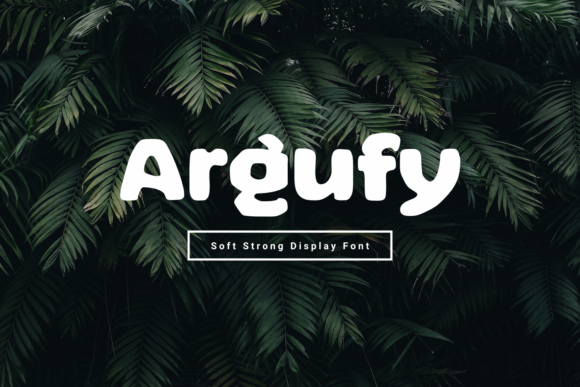
The Designer’s Delight: Exploring the Charm of Argufy Font
I’ll never forget the time I was working on a food menu project for a trendy new restaurant. I had all the ingredients ready – the mouth-watering images, the clever copy, and the design skills to bring it all together. But, as I sat staring at my screen, I realized I was stuck on one thing: the font. It had to be perfect, something that would make the menu pop and leave a lasting impression on customers. That’s when I stumbled upon Argufy Font, a cool, vintage-styled, and organic display font that instantly caught my attention.
A Personal Review: The Good, the Great, and the Quirks
As I started experimenting with Argufy Font, I fell in love with its unique charm. Here are some things that make it stand out:
- ✨ Unique vintage vibe that’s perfect for food menus, posters, and flyers
- ✅ Highly legible, even at larger sizes
- 💥 Extensive OpenType features, including glyphs and stylistic alternates
- 🎨 Great for designs that need a touch of warmth and personality
Of course, no font is perfect, and Argufy has a few minor quirks:
- 🤔 Some users might find the font a bit too ornate for certain projects
- ⚠️ Limited suitability for body text, due to its display font nature
The Story Behind Argufy Font
Argufy Font was designed with the intention of capturing the essence of vintage typography. The designer, inspired by classic signage and print materials, aimed to create a font that would evoke a sense of nostalgia and warmth. With its unique blend of organic and geometric elements, Argufy Font has become a go-to choice for designers looking to add a touch of personality to their work.
| What is the best use for Argufy Font? | Argufy Font is perfect for display purposes, such as food menus, posters, flyers, and other print materials. |
| Is Argufy Font suitable for body text? | No, due to its display font nature, Argufy Font is not ideal for body text. |
| Does Argufy Font come with OpenType features? | Yes, Argufy Font includes extensive OpenType features, such as glyphs and stylistic alternates. |
In conclusion, Argufy Font is a versatile and charming display font that’s perfect for designers, crafters, and creative hobbyists looking to add a touch of personality to their work. With its unique vintage vibe, extensive OpenType features, and ease of use, Argufy Font is sure to become a favorite in your design arsenal.